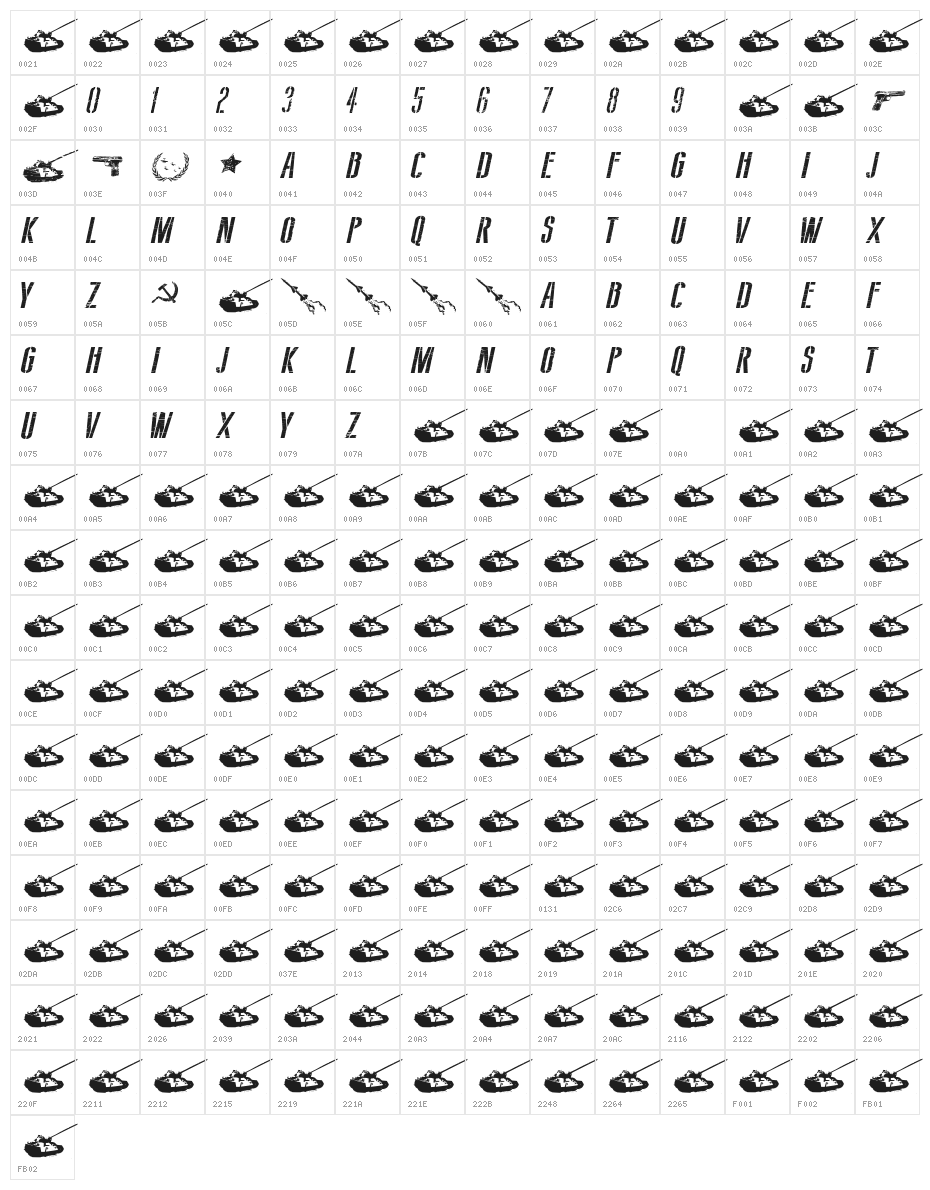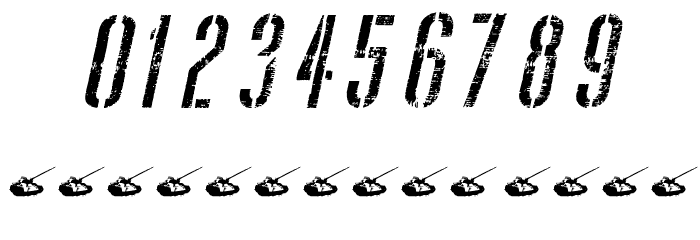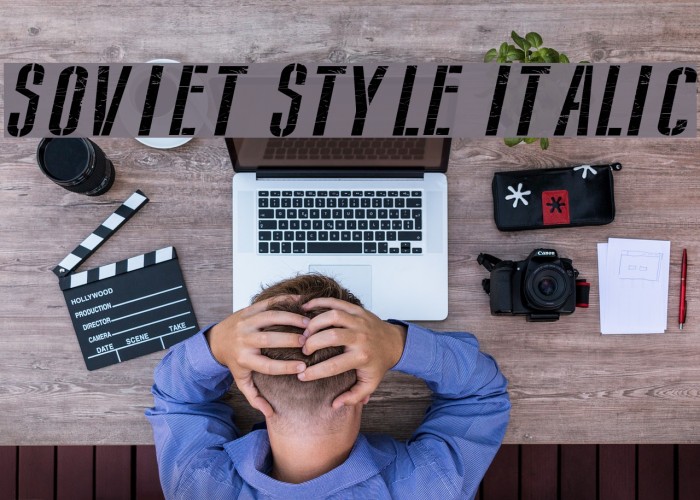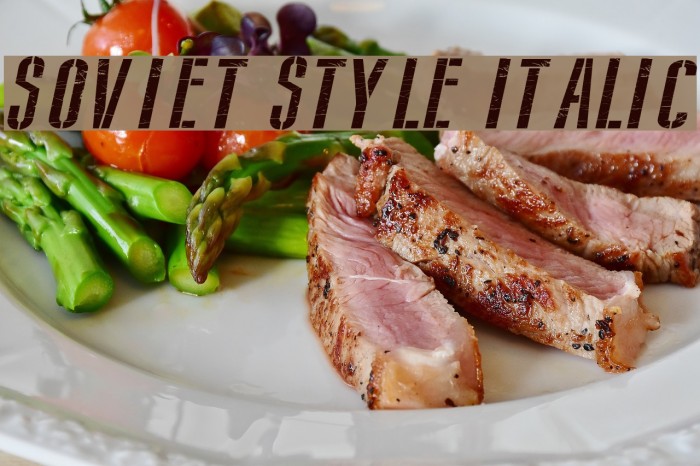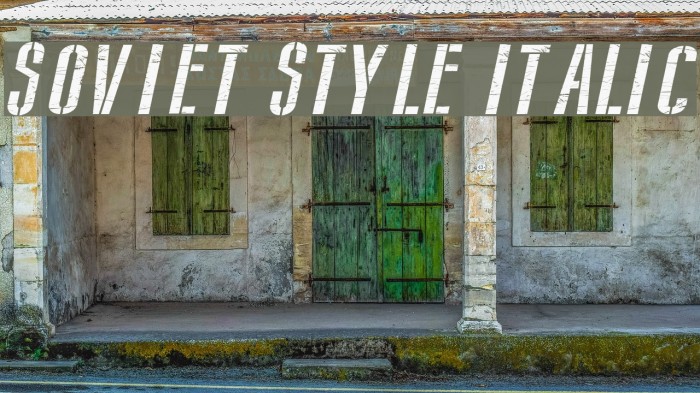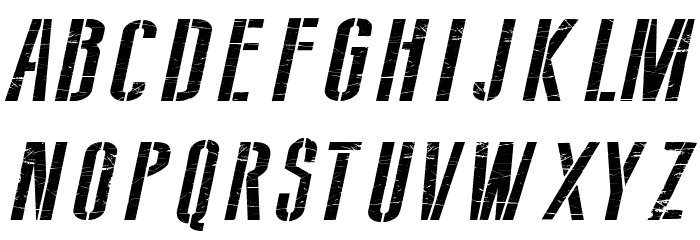
Soviet Style Italic Font
Soviet Style Italic Description
This font features a bold, italicized style with a distressed, grunge texture that evokes a rugged and industrial aesthetic. The characters are slanted, giving a sense of motion and urgency. The uppercase and lowercase letters maintain a consistent width, while the numbers are slightly narrower, enhancing readability. The texture adds a vintage, worn-out look, reminiscent of Soviet-era design elements. This font is visually striking and commands attention, making it suitable for impactful designs.
| Overall Style | Vintage, Industrial |
| Proposed Projects | Ideal for posters, album covers, branding for industrial or retro-themed projects, and any design needing a bold, vintage look. |